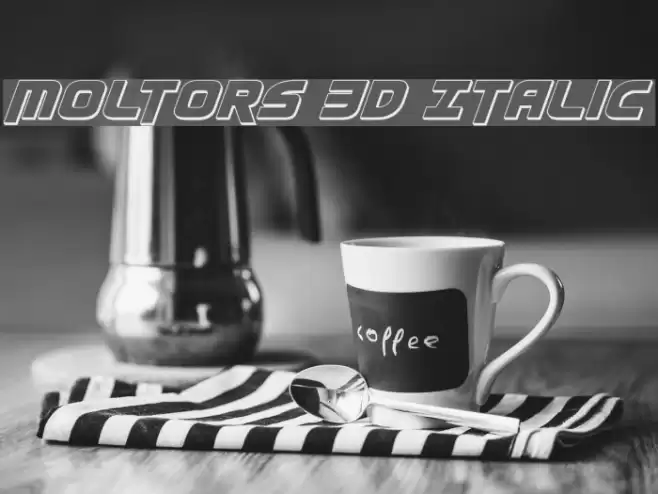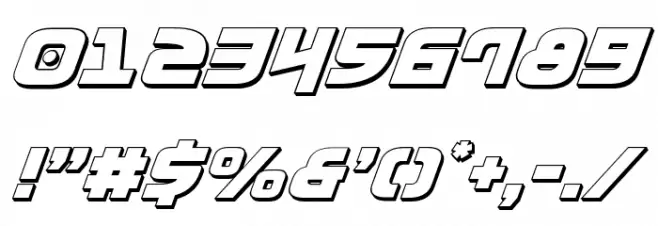
Moltors 3D Italic Font
Moltors 3D Italic Description
This font features a bold, three-dimensional design with italicized characters that create a dynamic and futuristic appearance. The letters are outlined, giving them a distinct, shadowed effect that enhances their 3D look. The uppercase and lowercase letters maintain a consistent style, with angular edges and a slightly condensed form. The numbers and special characters follow the same design principles, ensuring uniformity across all glyphs. This font is ideal for projects that require a modern and eye-catching typeface.
A bold, 3D italic font with outlined characters and a futuristic style from Uncategorized fonts.
- Proposed Projects: Ideal for video game titles, tech branding, futuristic posters, and digital media.